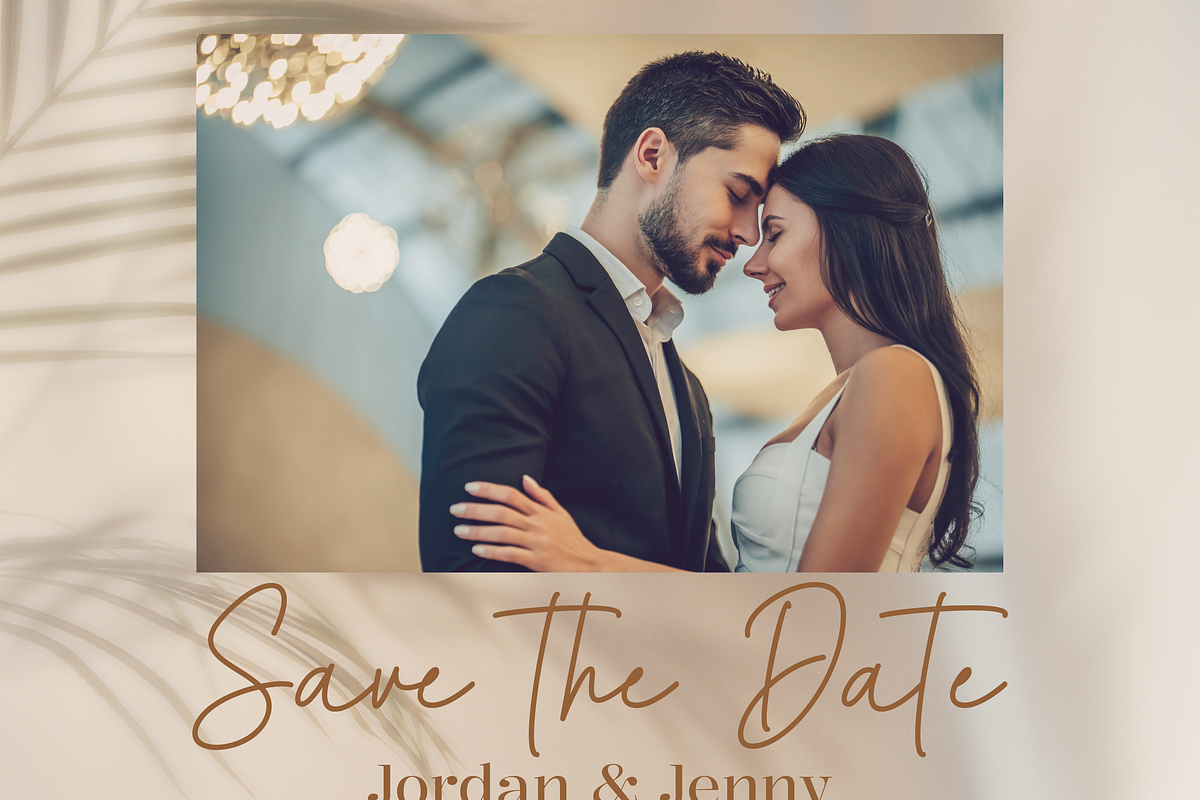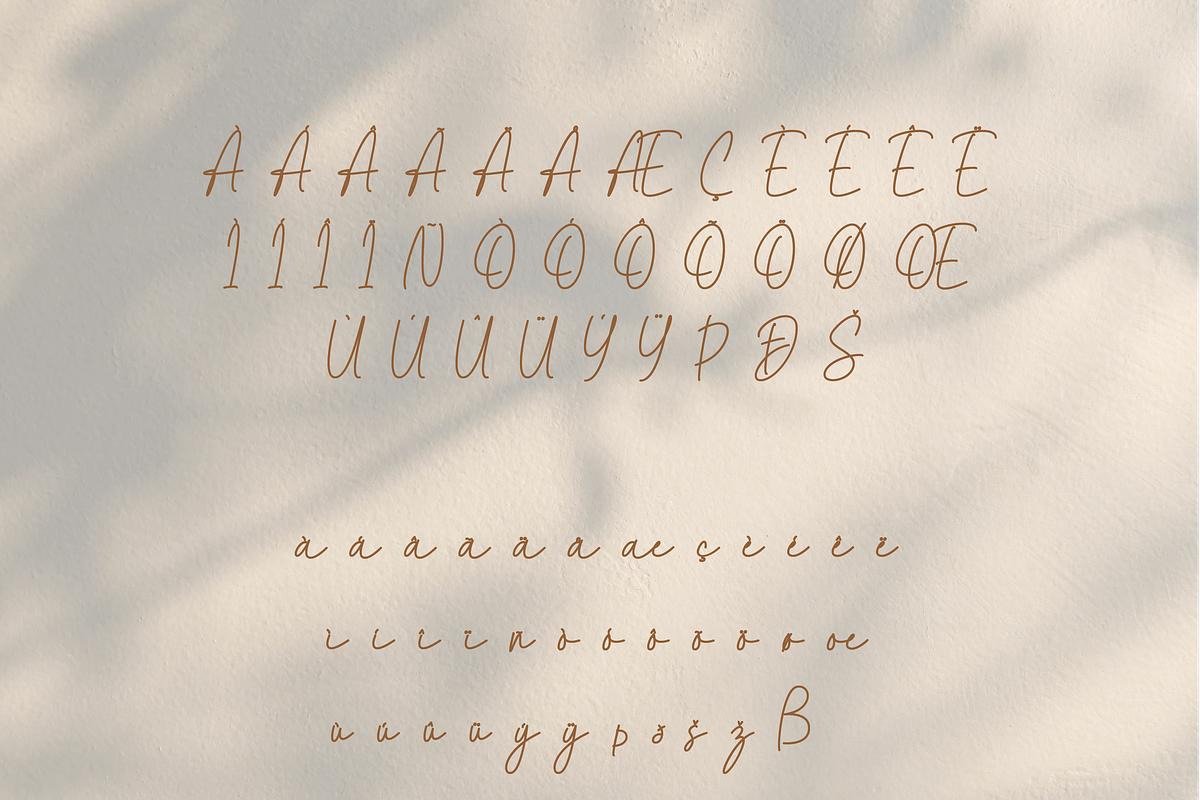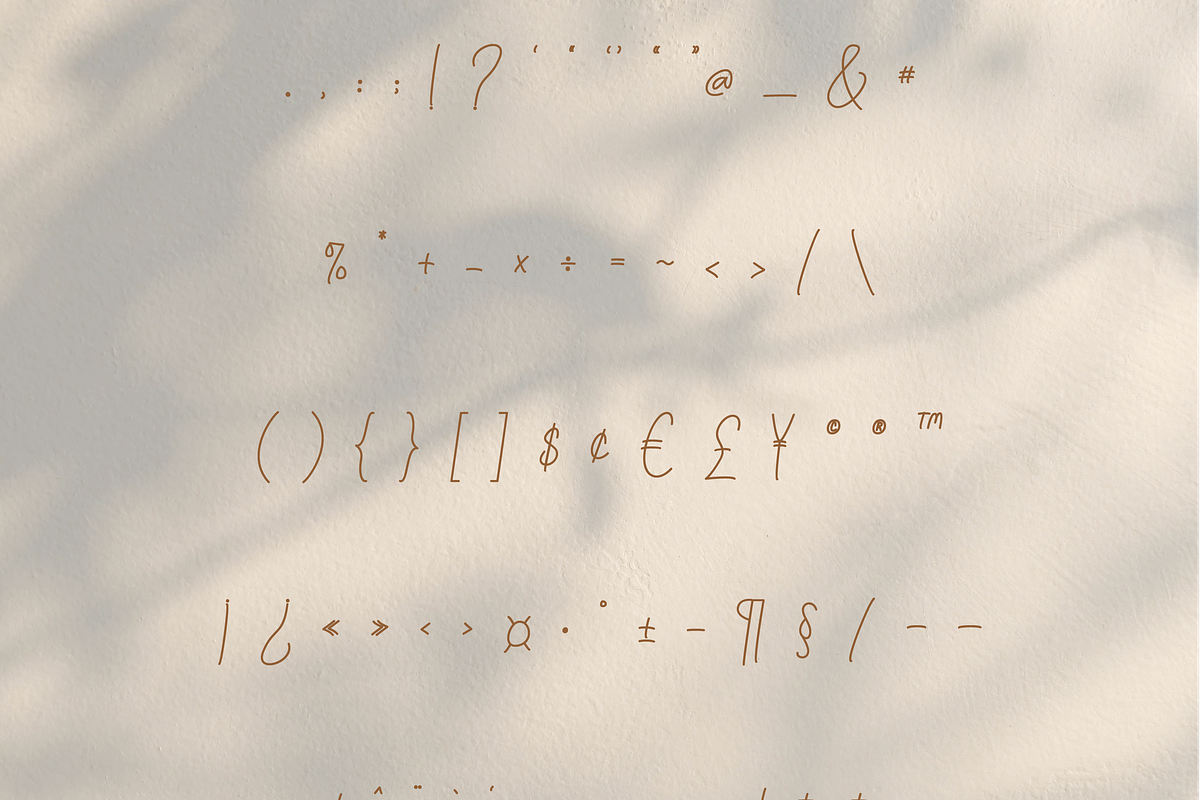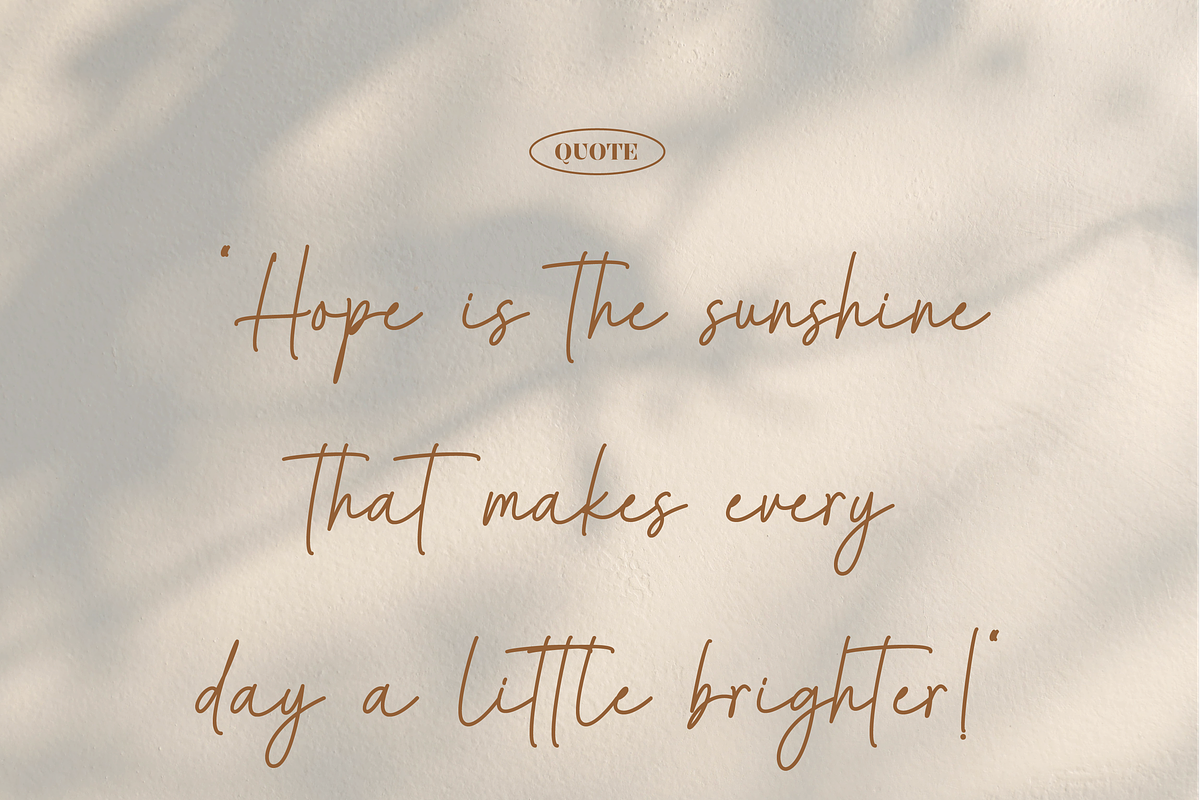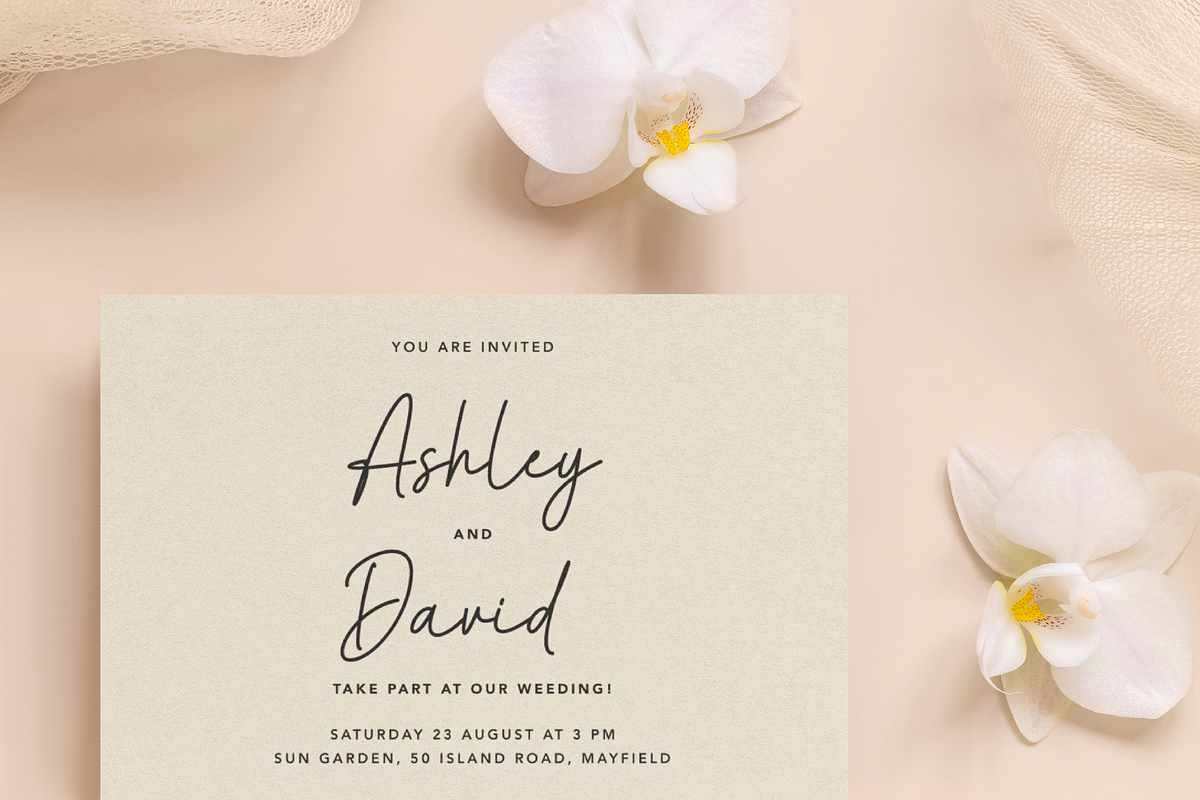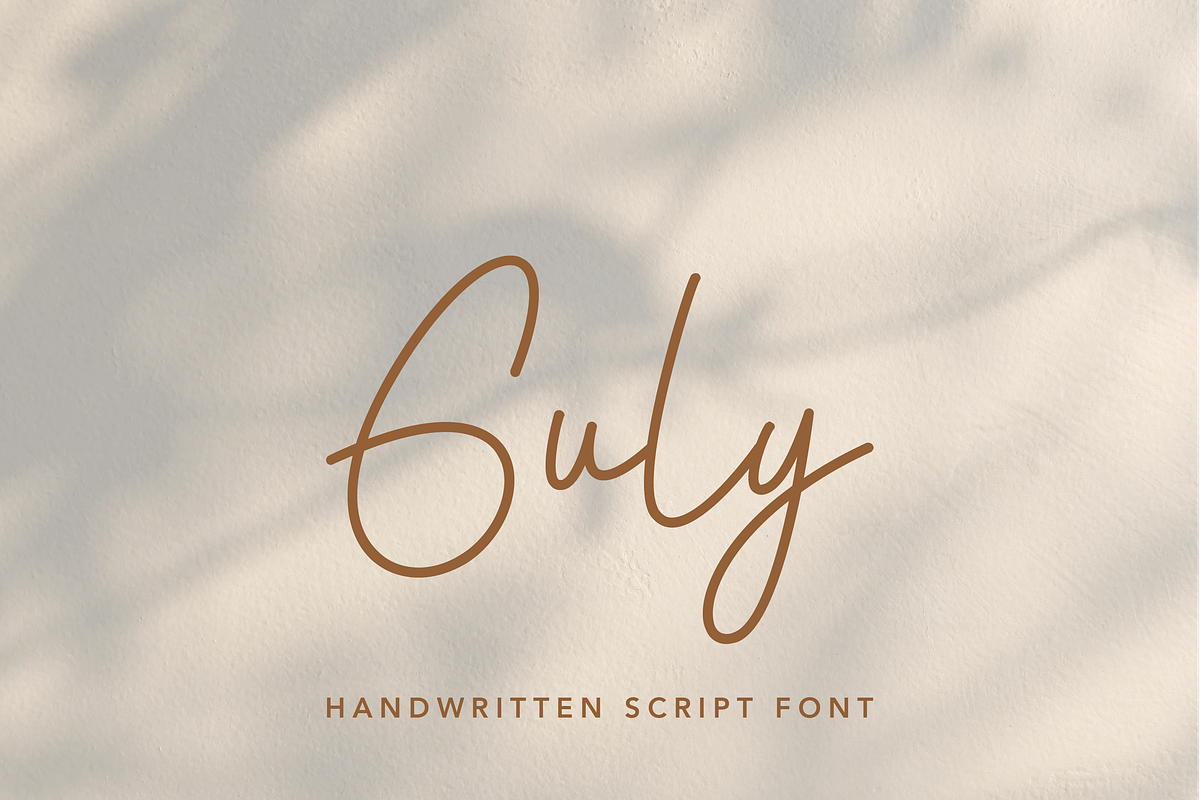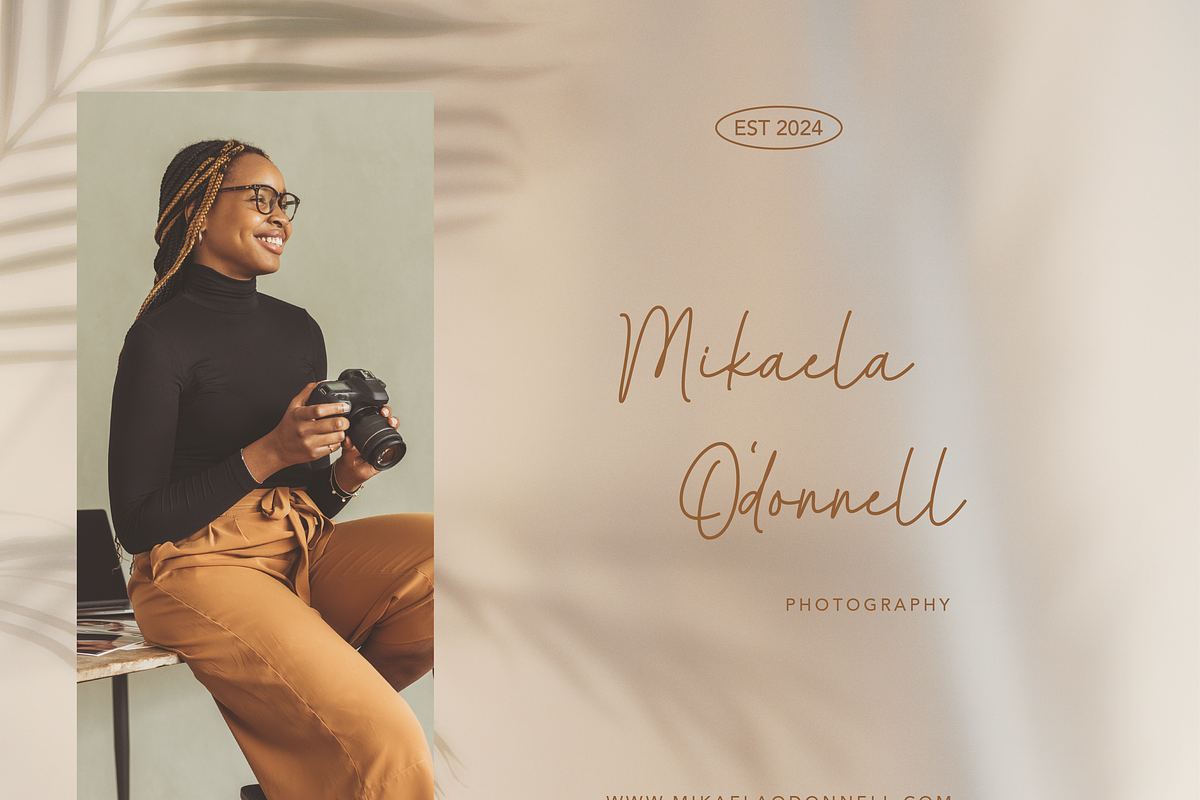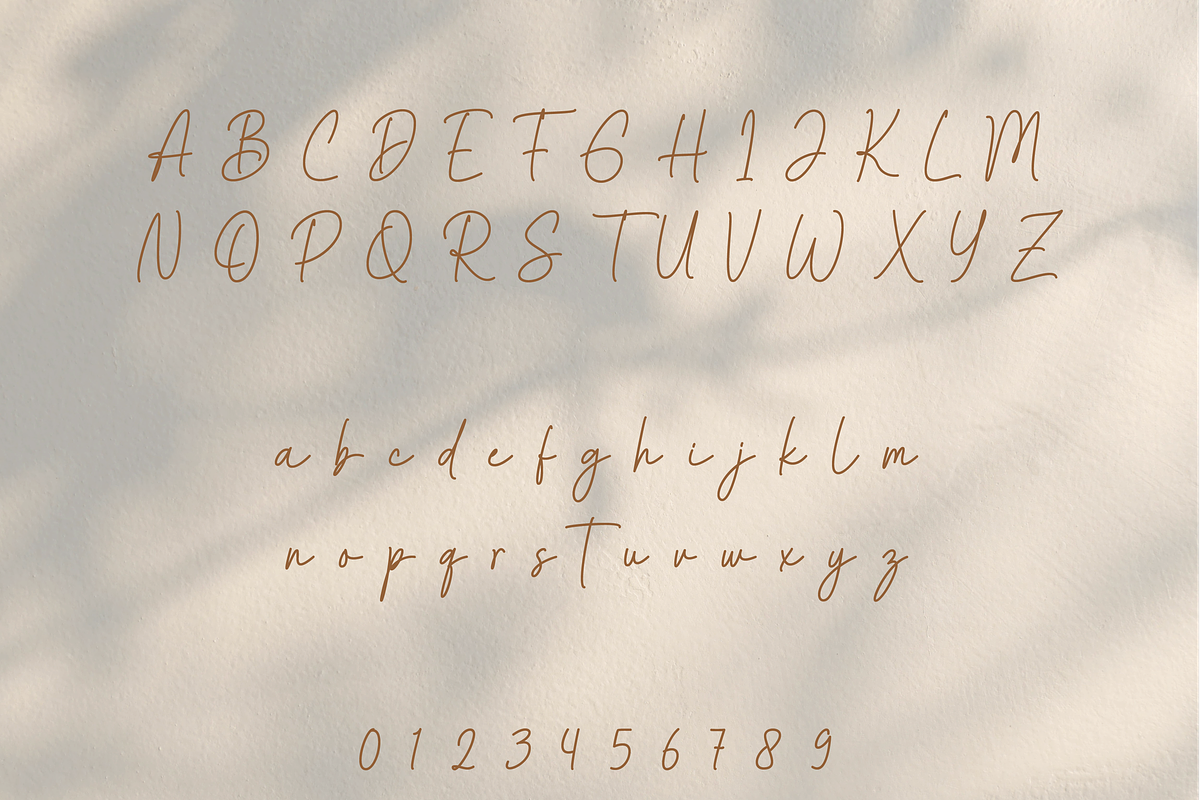
Guly Script Font
Guly – Elegant Signature Script Font
Guly is a sophisticated signature-style font that beautifully captures the essence of handwritten elegance. With its fluid strokes and intricate letterforms, it exudes charm and refinement, making it the perfect choice for upscale branding, personal signatures, invitations, and stylish editorial designs.
Designed to mimic the grace of fine penmanship, Guly brings a touch of individuality to any project, ensuring a polished and professional look.